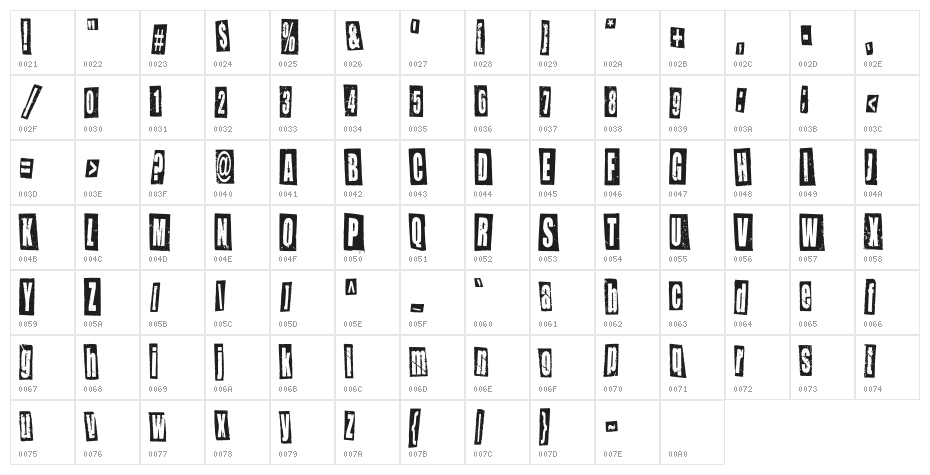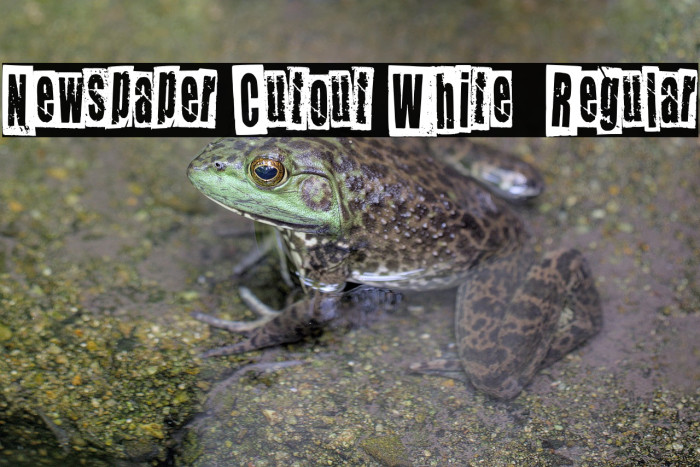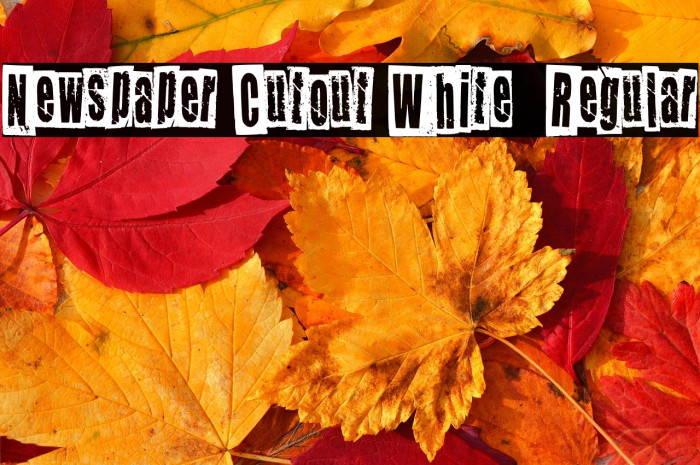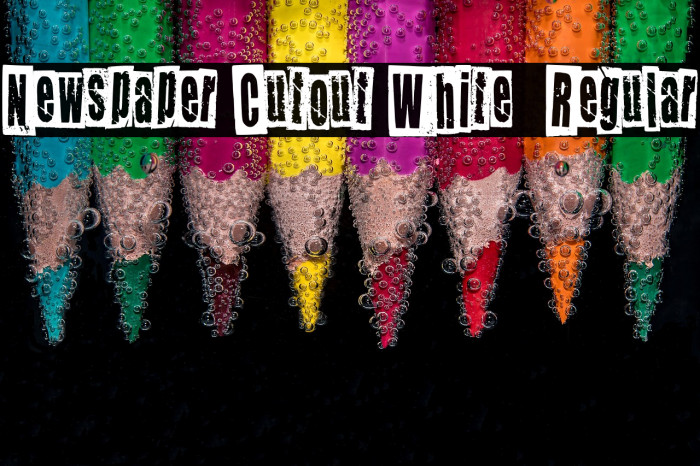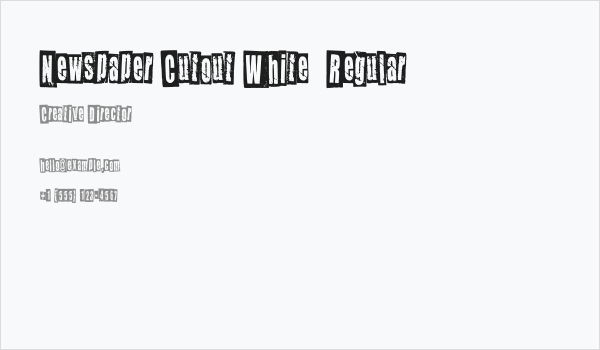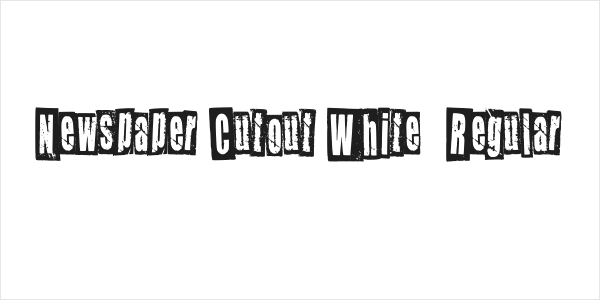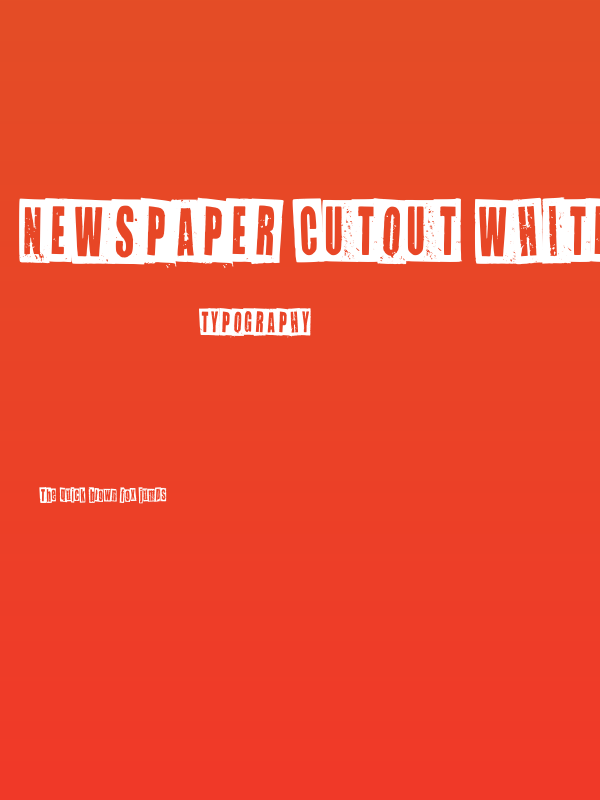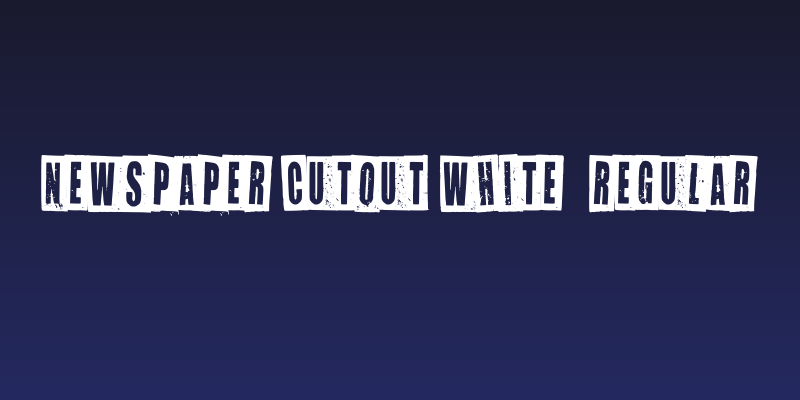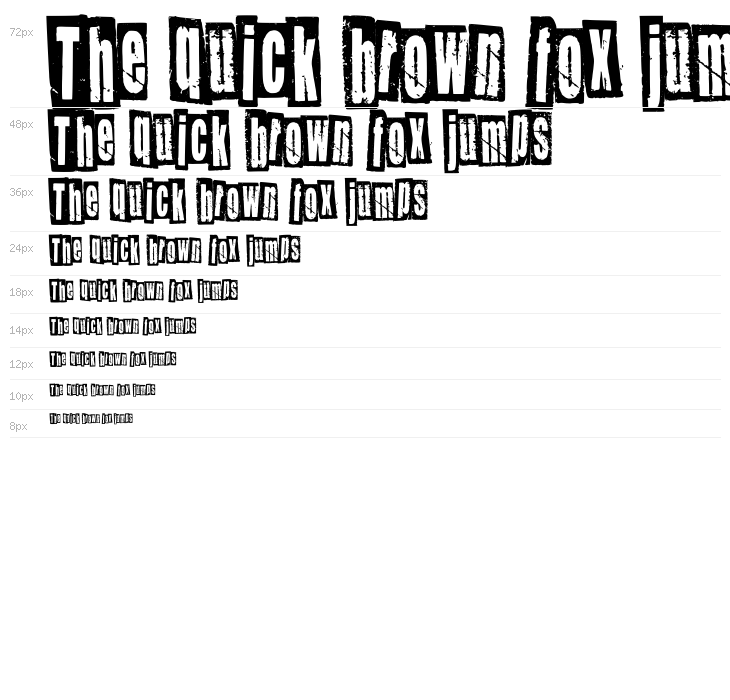
Newspaper Cutout White Regular Font
Newspaper Cutout White Regular Description
This font features a bold, distressed style reminiscent of newspaper cutouts, giving it a rugged and vintage appearance. Each character appears to be individually cut and pasted, with irregular edges and a textured look that enhances its raw, handmade feel. The uppercase and lowercase letters maintain a consistent height, while the numbers and special characters follow the same distressed aesthetic. This font's unique style makes it stand out, ideal for projects that require a bold statement or an edgy, retro vibe.
| Overall Style | Vintage, Decorative |
| Proposed Projects | Ideal for poster designs, album covers, vintage-themed projects, and any creative work that requires a bold, eye-catching typeface. |